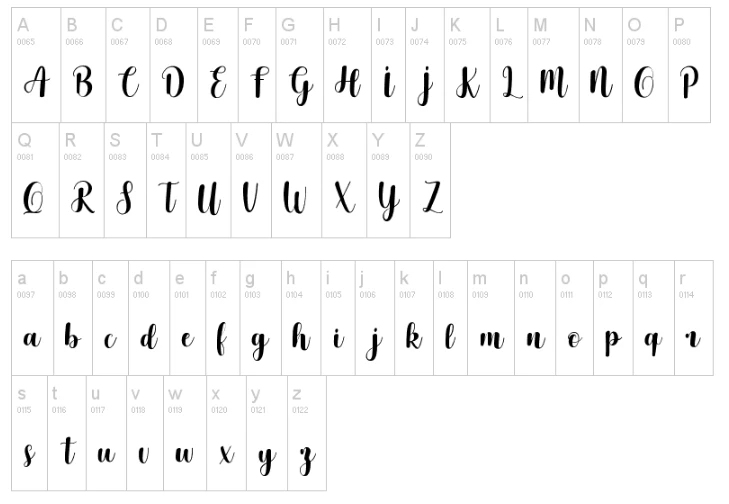
The Cherishing Moment font is a high-quality regular display type font created by C.T.B. It has a fun feel to it. We can use it in a wide range of creative design projects because it has a friendly feel.
The Cherishing Moments font is an excellent choice for beginner-level designers because they can manipulate the font the way they want. It can be experimented with different design projects because of its versatile nature.Â
The font is particularly suited for parties or celebrations. However, we can use this font in promotional activities, like promoting furniture companies.
The font has uppercase and lowercase letters, numbers, and a few special characters. It also has 181 characters and 146 glyphs.
The cherishing moments font is suitable for branding, packaging of products, posters, covers, invitations, social media posts. Can also be used to create an awesome image, texts with various colors, wedding cards, holiday designs, Christmas or any kind of celebrations.
Cherishing Moments Font View
| Name | Cherishing Moments Font |
| Style | Display |
| Designer | C T B |
Ans:Â It is a display font.
Ans:Â The font is designed by C.T.B.